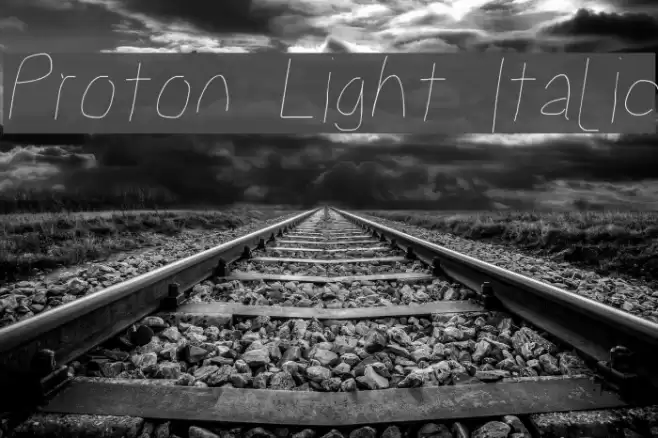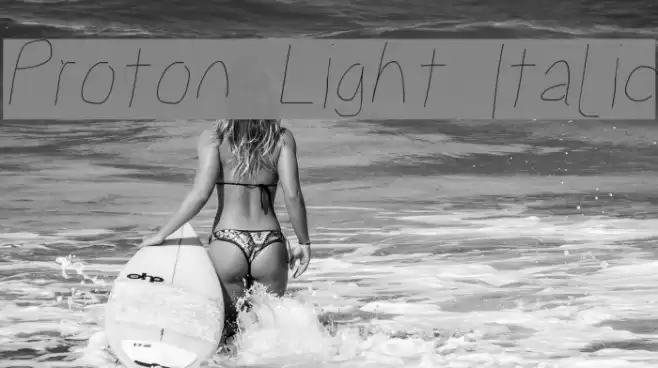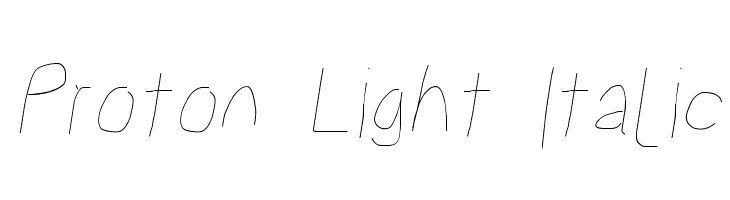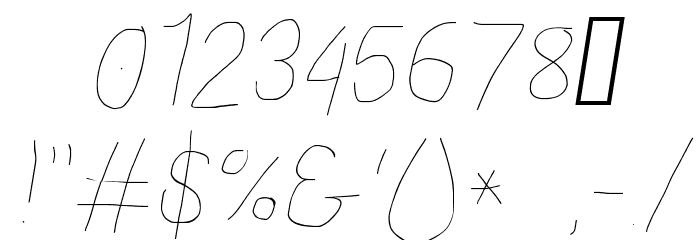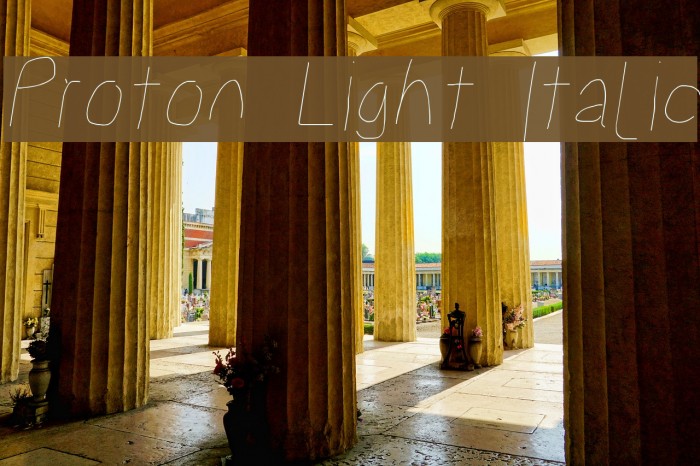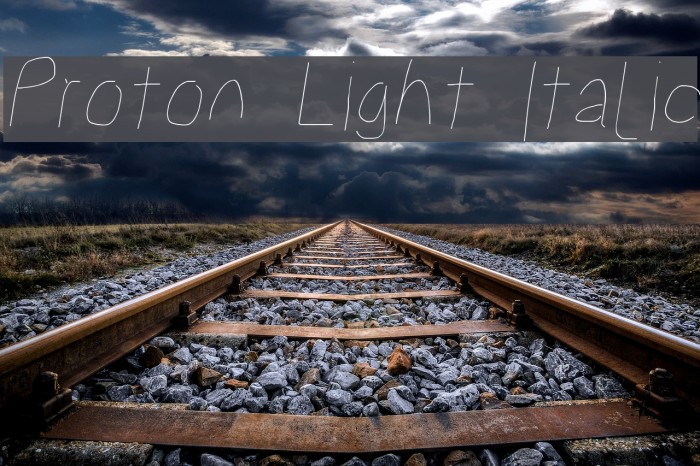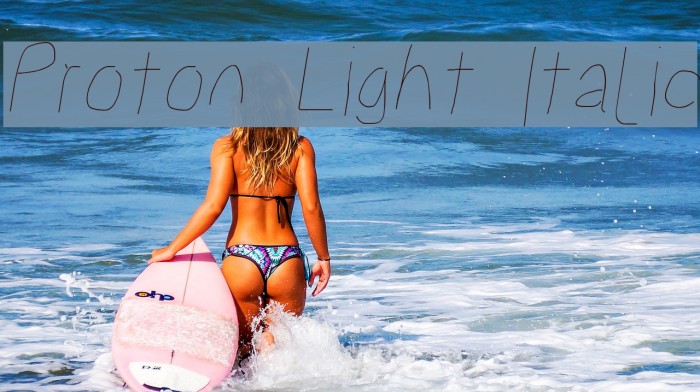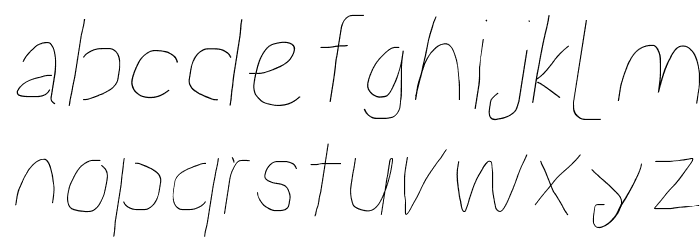
Proton Light Italic Font
Proton Light Italic Description
This font features a light and airy design with a subtle italic slant, giving it a sense of elegance and fluidity. The characters are thin and elongated, with a consistent stroke width that maintains a clean and modern appearance. The uppercase letters are slightly taller than the lowercase, providing a balanced and harmonious look. The numerals are well-proportioned, matching the overall style of the alphabet. Special characters are included, maintaining the same delicate and refined aesthetic. This font is ideal for projects that require a touch of sophistication and a modern, minimalist feel.
A light, italic font with a modern and elegant style from Uncategorized fonts.